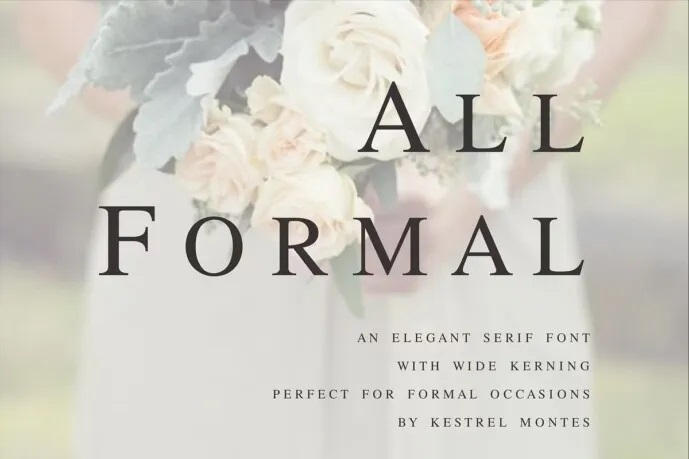
All Formal Font
It can be concluded that All Formal by Kestrel Montes is an elegant all caps serif font with wide kerning suitable for formal occasions and business logos. This font was in fact created for my stamping ventures as the perfect address font.
All Formal Serif Font